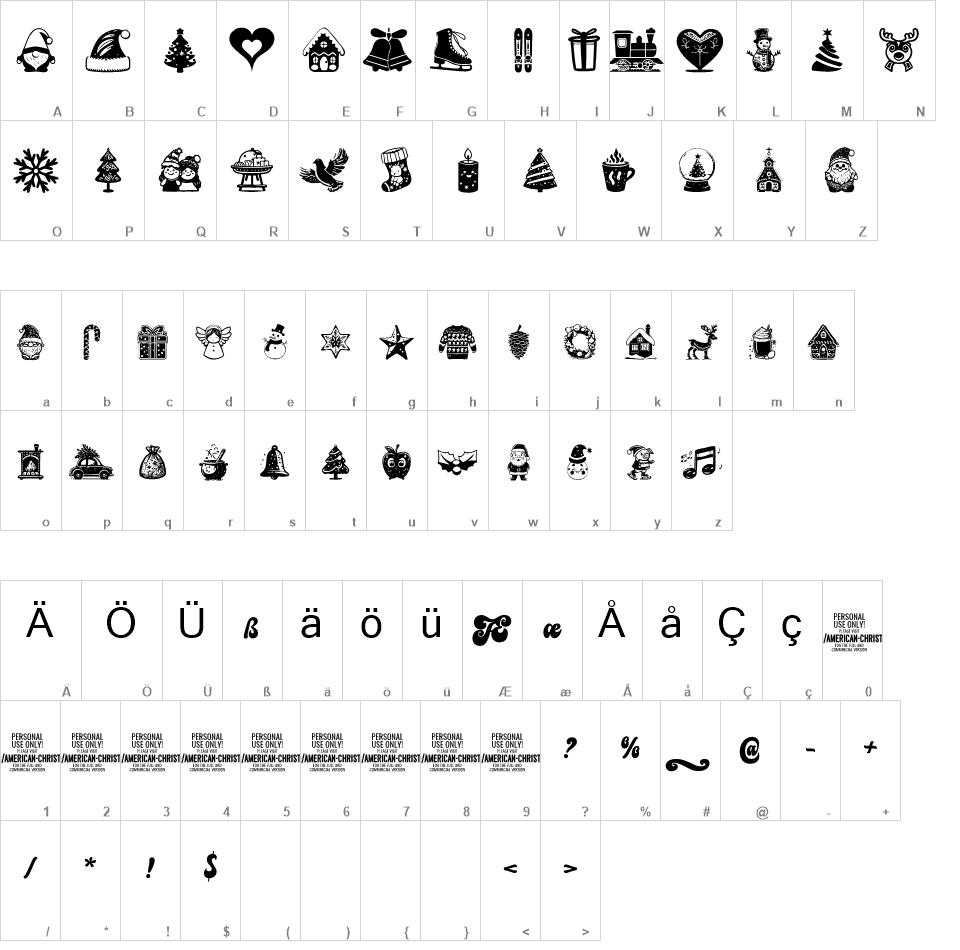
American Christmas font
American Christmas is a funky and decorative season's typeface that brings a festive touch to every word, with retro letters that dance joyously across the page.
Use parenthesis symbols () [] {} to make stars around any word.
Example: {Xmas}[Songs]
Use underscore _ after any word to make a swash.
Example: Santa_
Multiple underscores makes longer tails.
Example: Yuletide____
American Christmas is a funky and decorative season's typeface.
As a cozy winter script, it brings a festive touch to every word, with letters that seem to dance joyously across the page. Its bold flow is reminiscent of retro holiday signage, evoking a sense of nostalgia and warmth. This typeface is adorned with stars that twinkle like lights on a tree, adding a sparkle to your seasonal greetings.
This typeface family is provided in three starry versions and one clean, and also comes with an extra symbol font for beautiful Xmas icons.
Use parenthesis symbols () [] {} to make stars around any word.
Example: {Xmas}[Songs]
Use underscore _ after any word to make a swash.
Example: Santa_
Multiple underscores makes longer tails.
Example: Yuletide____
The font is built with advanced OpenType functionality and guaranteed top-notch quality, containing stylistic and contextual alternates, ligatures and more automatic and manual features; all to give you full control and customizability.
It has extensive lingual support, covering all Latin-based languages, from North Europa to South Africa, from America to South-East Asia. It contains all characters and symbols you'll ever need, including all punctuation and numbers.
With American Christmas, Mans Greback has crafted a typeface that captures the essence of the holiday spirit. Each character is designed to convey the excitement and heartfelt connection of the season, making it an ideal choice for those moments when you want your message to be wrapped in the warmth of the holidays.